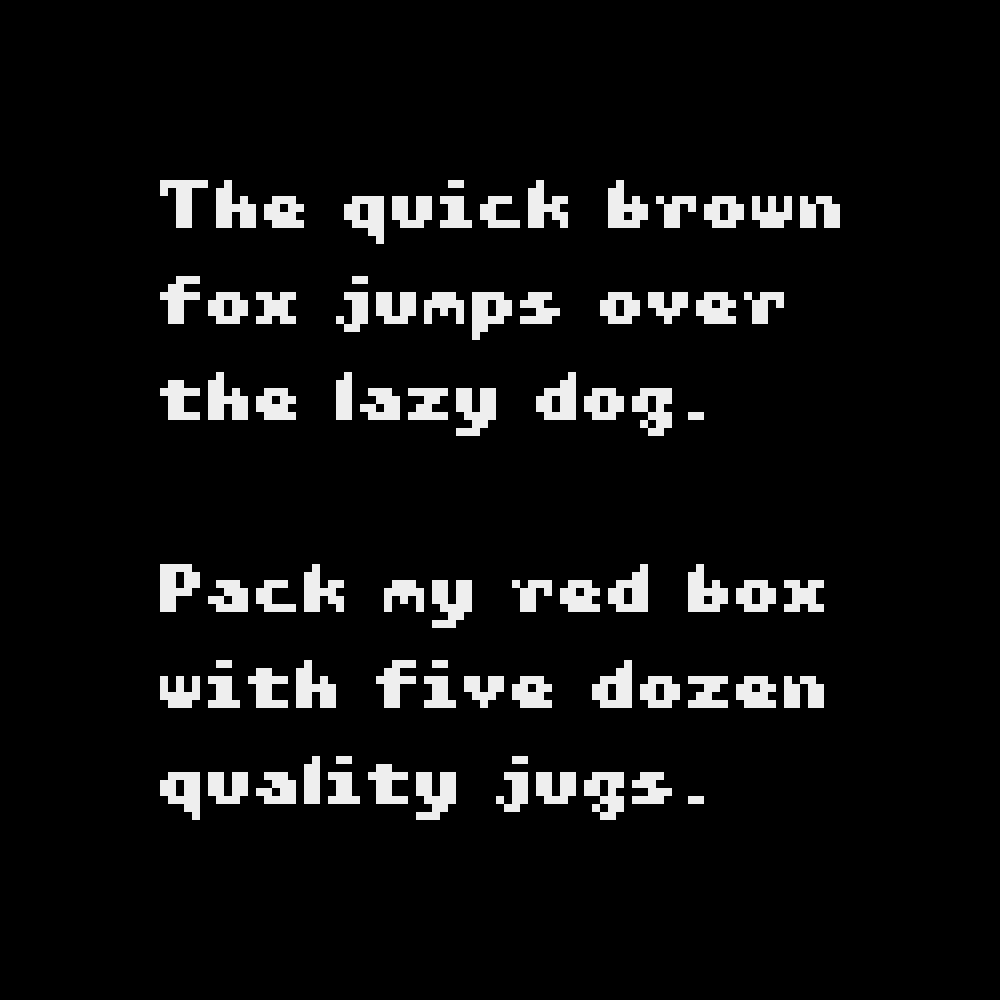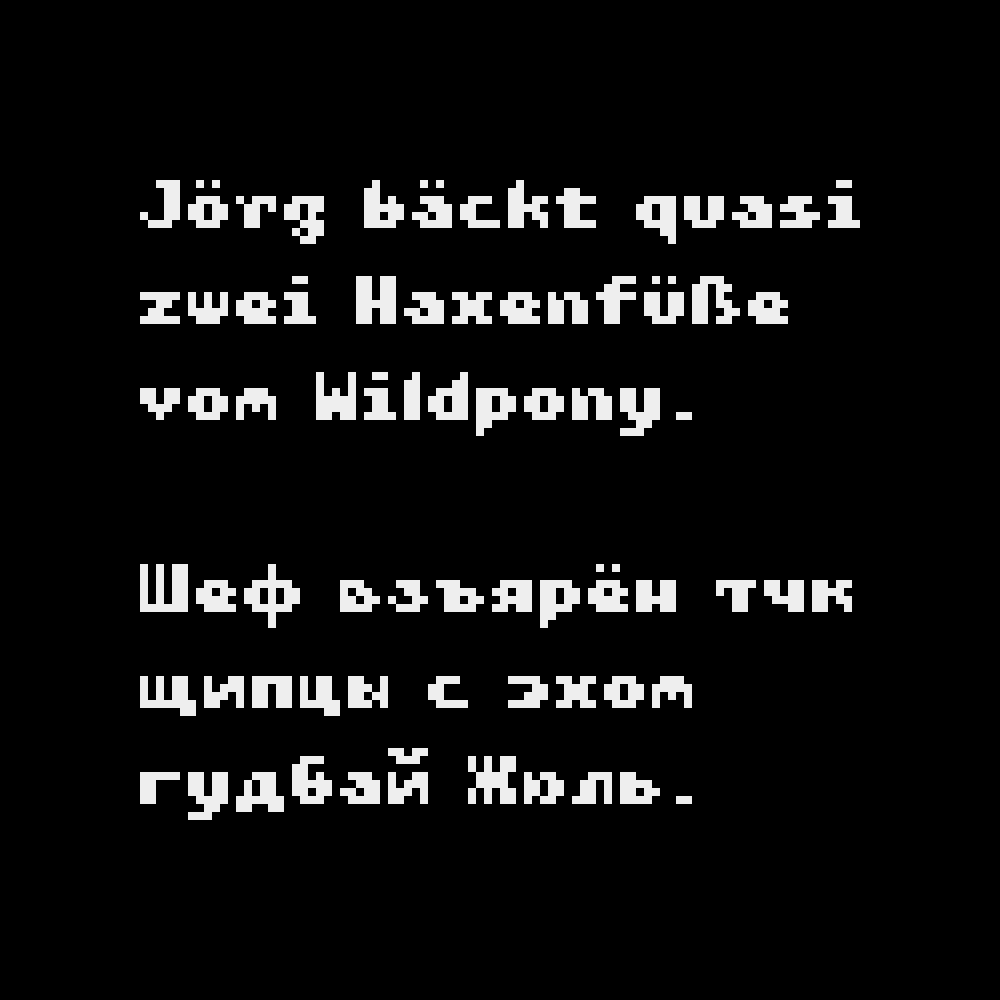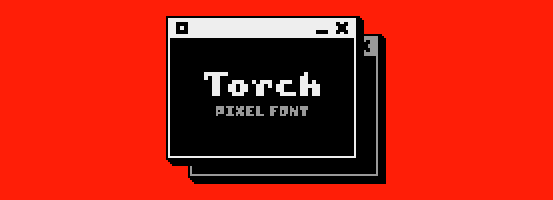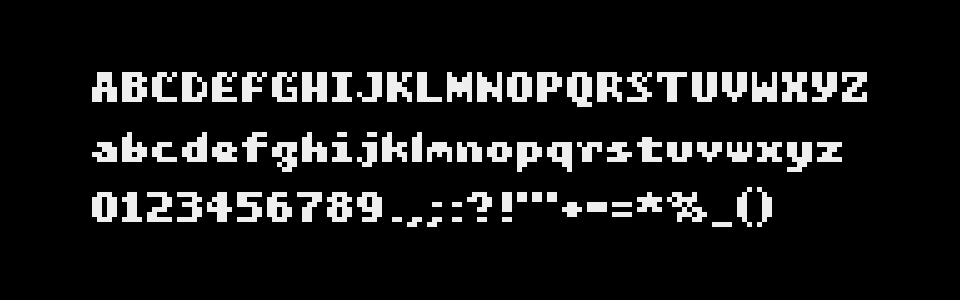
Torch is a fiery, pocket-sized, fantasy, 6px tall pixel font!
Suggested size: 12/24pts. Disable anti-aliasing.
Aseprite: set Font Size to 16. Disable anti-aliasing filter.
Full Character Set:
ABCDEFGHIJKLMNOPQRSTUVWXYZ abcdefghijklmnopqrstuvwxyz 0123456789.,;:?!"'+-=*%_() []{}~#&@©®™°^`|/\<>…€$£¢¿¡“”‘’«»‹›„‚·• ÀÁÂÄÃÅĄÆÇĆÐÈÉÊËĘĞÌÍÎÏİŁÑŃÒÓÔÖÕŐØŒŚŞẞÞÙÚÛÜŰÝŸŹŻàáâäãåąæçćðèéêëęğìíîïıłñńòóôöõőøœśşßþùúûüűýÿźżАБВГҐДЕЁЄЖЗИІЇЙКЛМНОПРСТУФХЦЧШЩЪЫЬЭЮЯабвгґдеёєжзиіїйклмнопрстуфхцчшщъыьэюя
Supported languages:
English, French, Italian, German, Spanish, Portuguese, Danish, Swedish, Norwegian, Icelandic, Hungarian, Polish, Turkish, Russian, Ukrainian…
I'm considering some of your fonts and I would like to ask about the fact that although the fonts are designed with different sizes as noted in their descriptions (like this one at 6px or NOCIVE at 15px etc.), they all have the same suggested sizes of 12/24px.
Would they all render correctly at the suggested sizes (or I assume multiples of 12px) when used in an engine?
Hello! The suggested size is expressed in points (pts!) not pixels. A font rendered at 12 points will be shown 1:1 on screen. So, in the case of Torch, it will have a cap height (the height of uppercase letters!) of 6px. 24 points will scale it 2x , 36 will be 3x and so on.
It's important to use pixel fonts at the correct point size to avoid uneven upscaling (that will look horrible and create artifacts, like with pixelart in general!). If you want, you can try with one of my free fonts before committing to a purchase. What about Yolk? https://somepx.itch.io/free-font-yolk
Yeah I noticed it was expressed in points too, but I wasn't sure what that means. I just know text editors like Microsoft Words or Google Docs uses points, but game engines use pixels (I'm using Godot), so I assumed it was meant as pixels. As you can probably tell I'm not much of a font expert haha.
I tried out Yolk like you suggested and saw that the font is meant to be used in multiples of 16. I noticed most of your other fonts say set font size at 16 in Aseprite, so I assume it means all of your fonts, regardless of different cap height, are meant to be used with multiples of 16px sizes? Except for some larger fonts that are suggested to be set at 32px.
Hey! That's correct: to show my fonts at the intended size in Godot, set them to a multiple of 16 (or 32 for those larger fonts). Make sure to disable any kind of antialiasing.
I really like the look of this font, does it work in Godot?
Of course it does!~✨